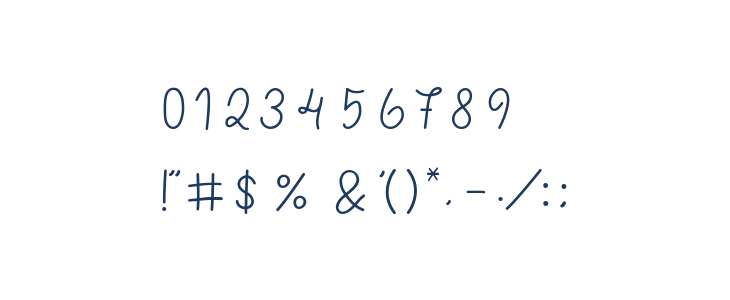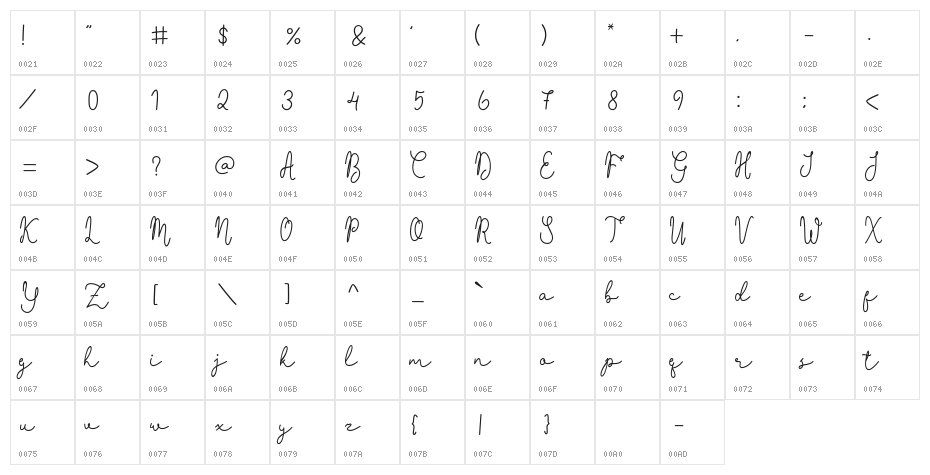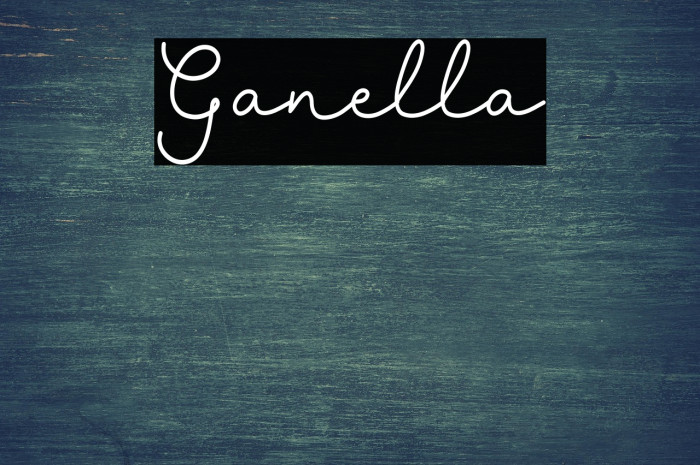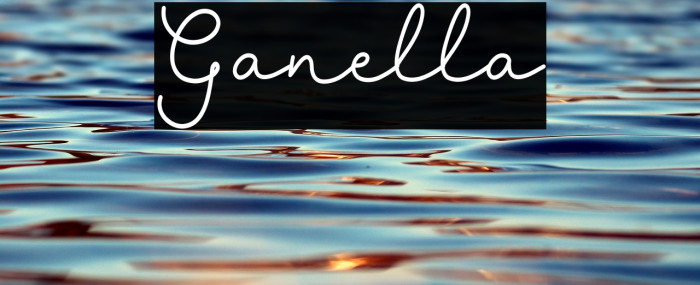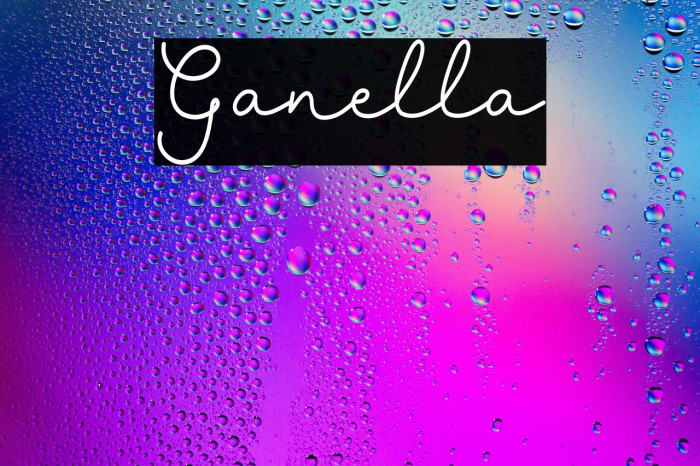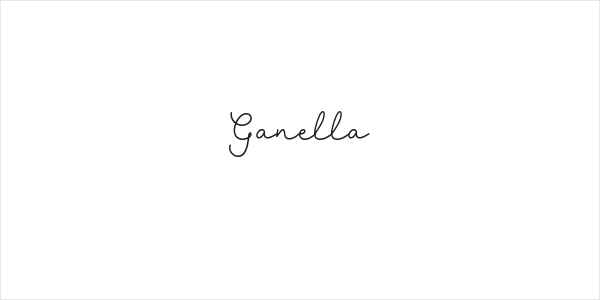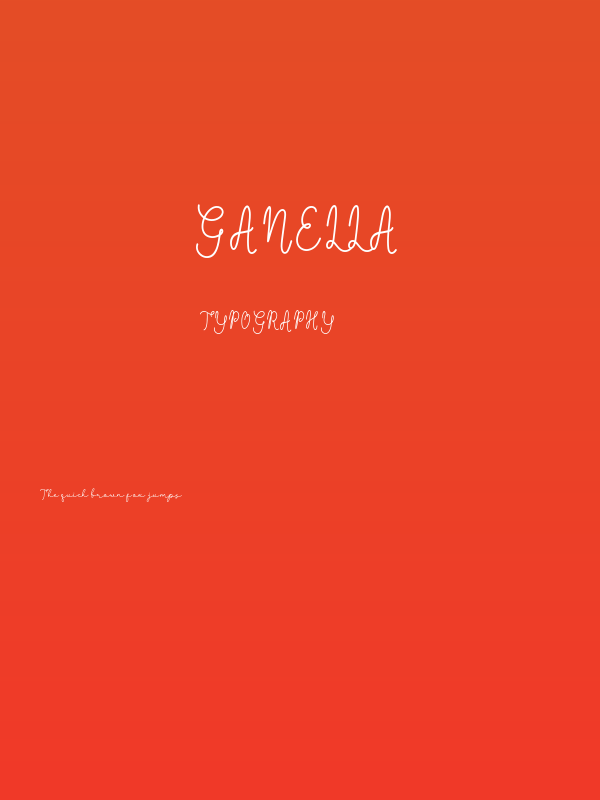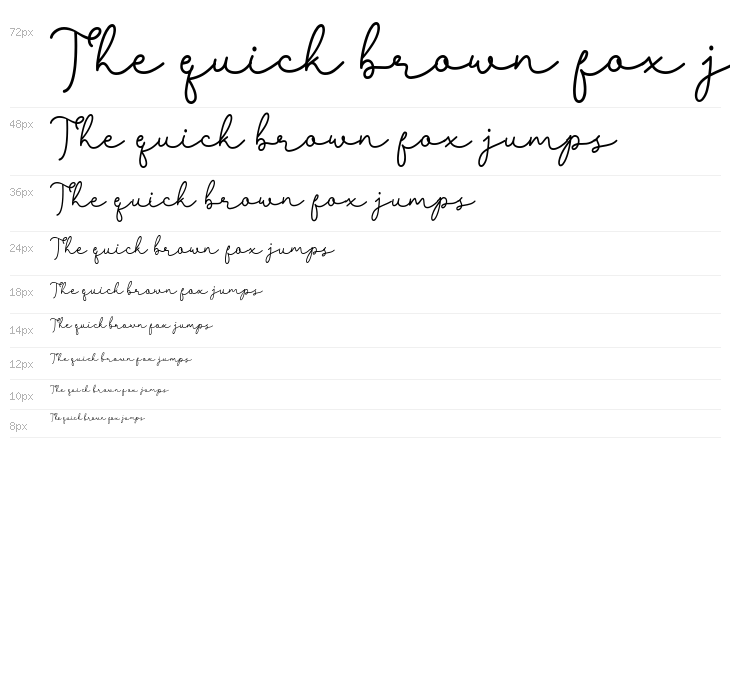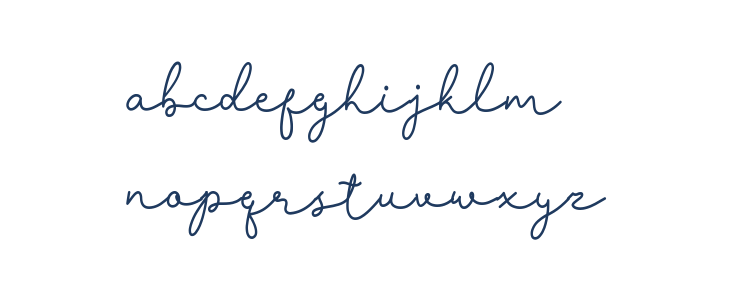
Ganella Font
Ganella Description
This font features a charming and elegant script style, characterized by its flowing and connected letterforms. The uppercase letters are tall and graceful, with a slight slant that adds a sense of movement and fluidity. The lowercase letters maintain a consistent flow, enhancing readability while preserving the font's decorative appeal. Numbers and special characters are designed to match the overall style, ensuring a cohesive look across all text elements. The font's delicate strokes and smooth curves make it ideal for projects that require a touch of sophistication and elegance.
| Proposed Projects | Ideal for wedding invitations, greeting cards, branding, and elegant packaging designs. |